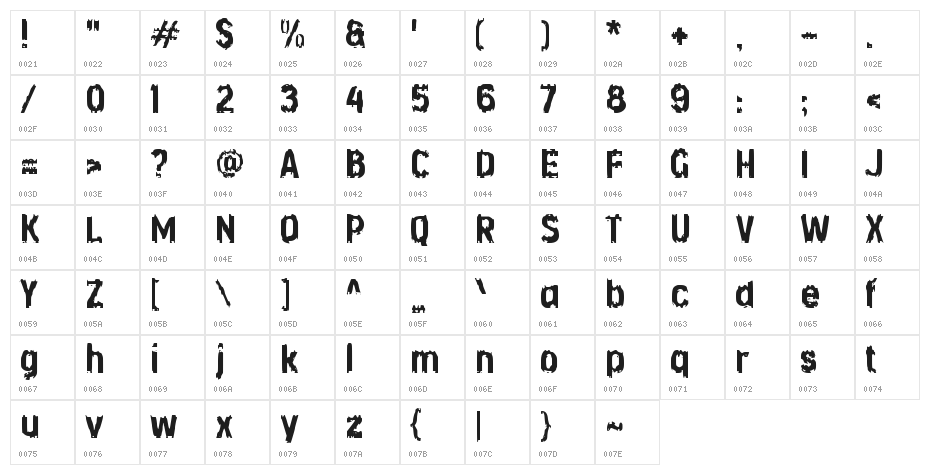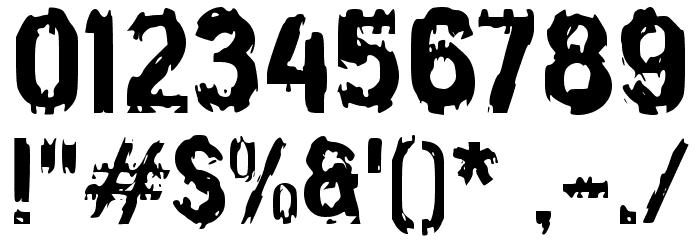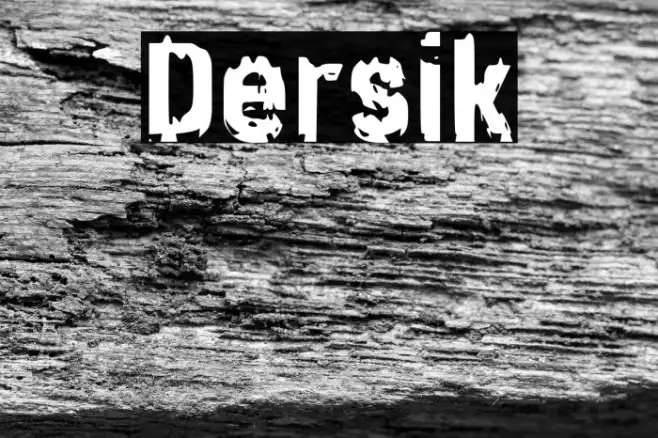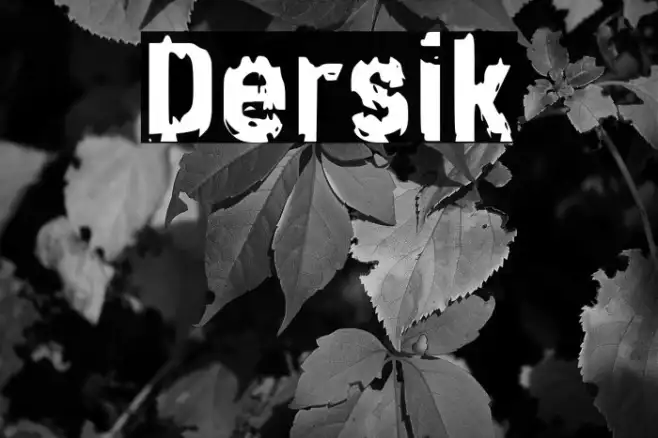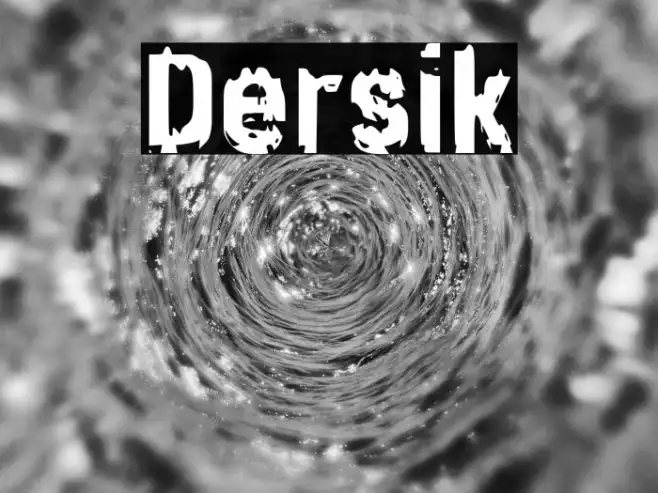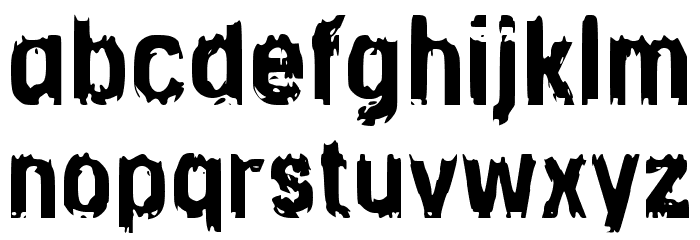
Dersik Font
Dersik Description
This font features a bold and distressed style, characterized by rough edges and irregular shapes that give it a grungy, worn appearance. The uppercase and lowercase letters maintain a consistent height, while the numerals and special characters follow the same rugged aesthetic. The font's unique texture suggests a sense of decay or erosion, making it ideal for designs that aim to convey a raw, edgy, or rebellious tone. Its boldness ensures visibility and impact, while the distressed elements add a layer of visual interest and complexity.
| Overall Style | Grunge, Edgy, Distressed |
| Proposed Projects | Ideal for music album covers, posters, urban-themed designs, and branding for edgy or alternative products. |